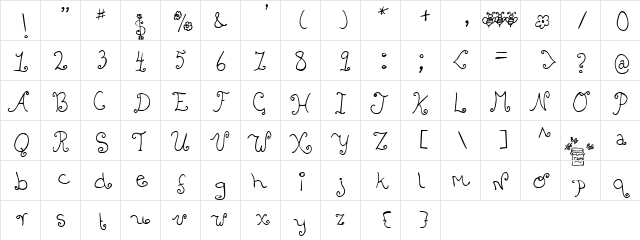
Bizzy Bee Regular Font Preview
Bizzy Bee Regular
Design Context for Bizzy Bee Typeface
Bizzy Bee is a composed and adaptable typeface that performs quietly and consistently across a wide range of design contexts.